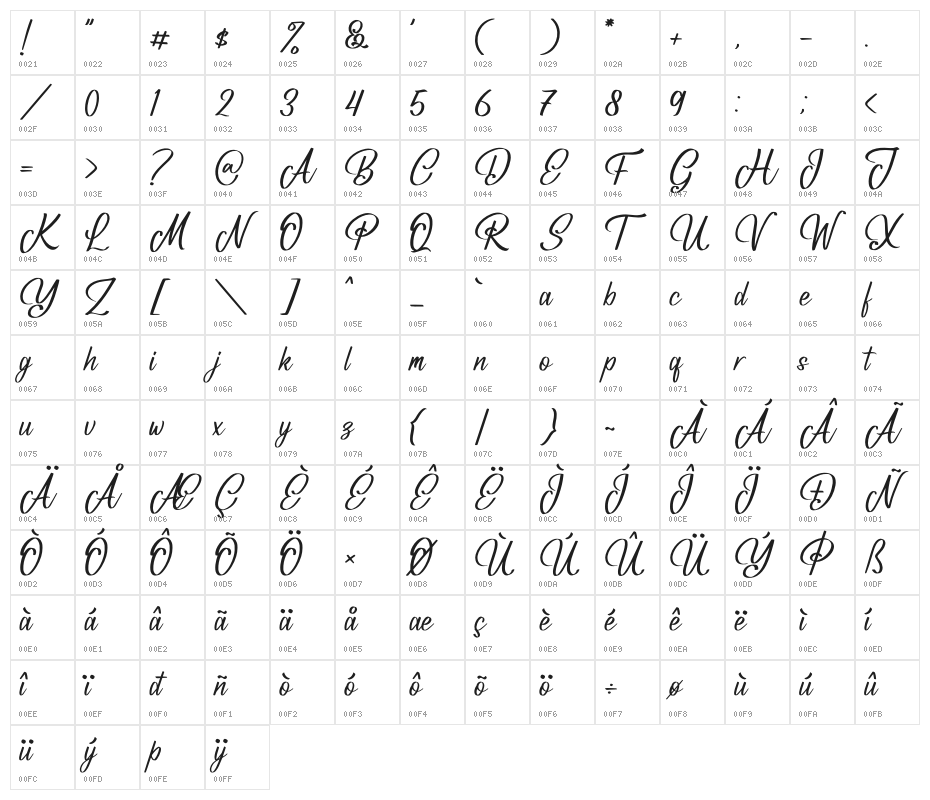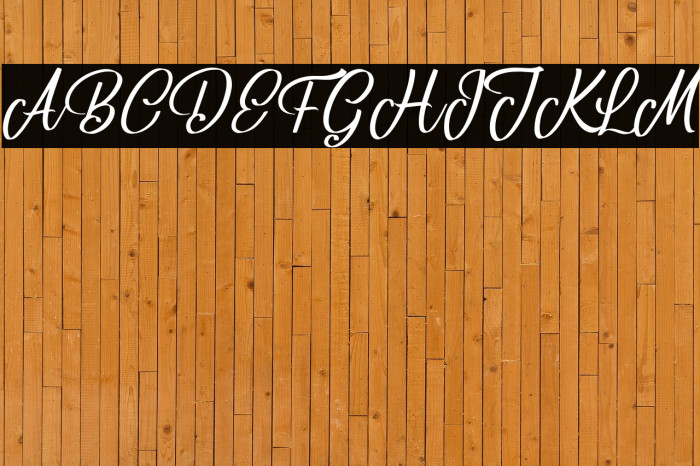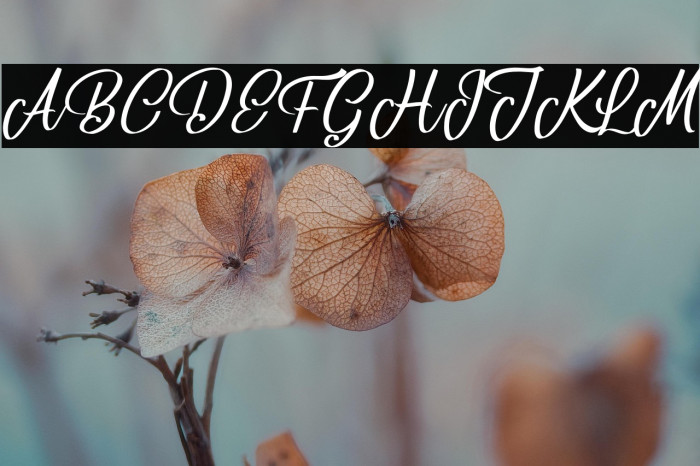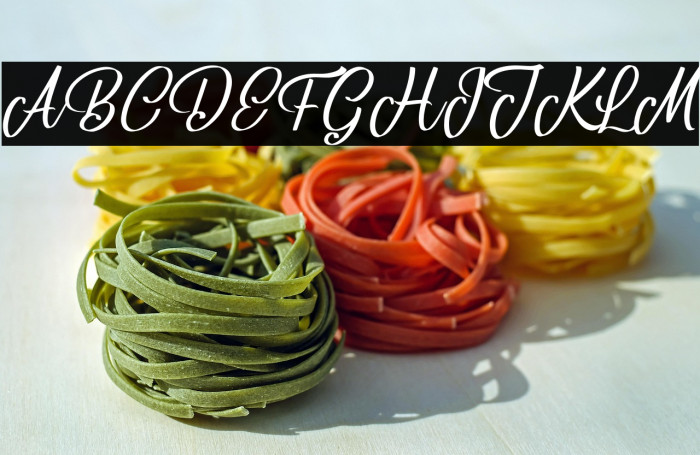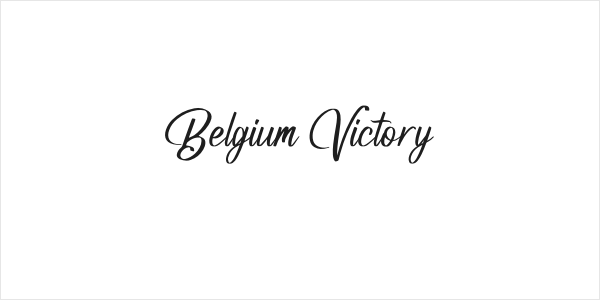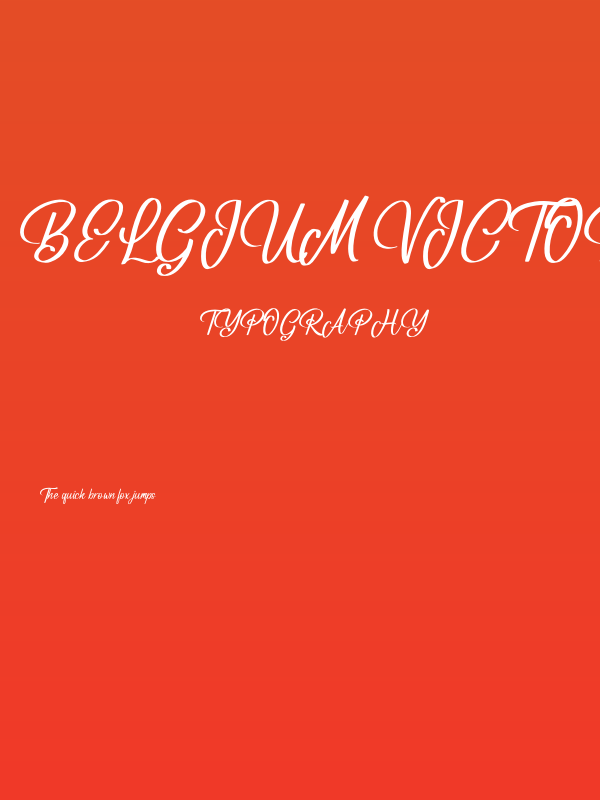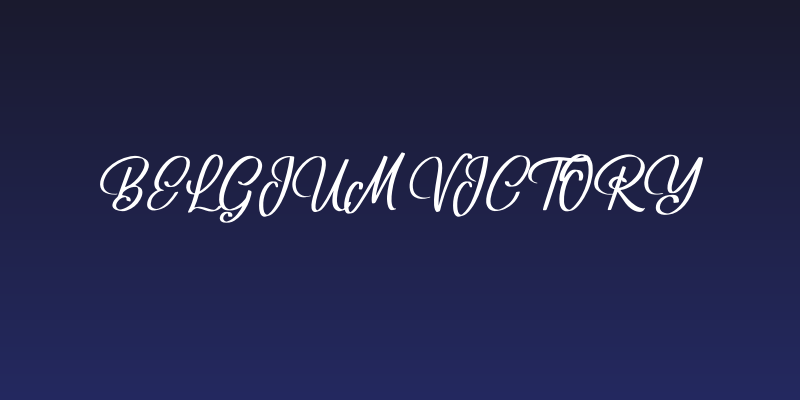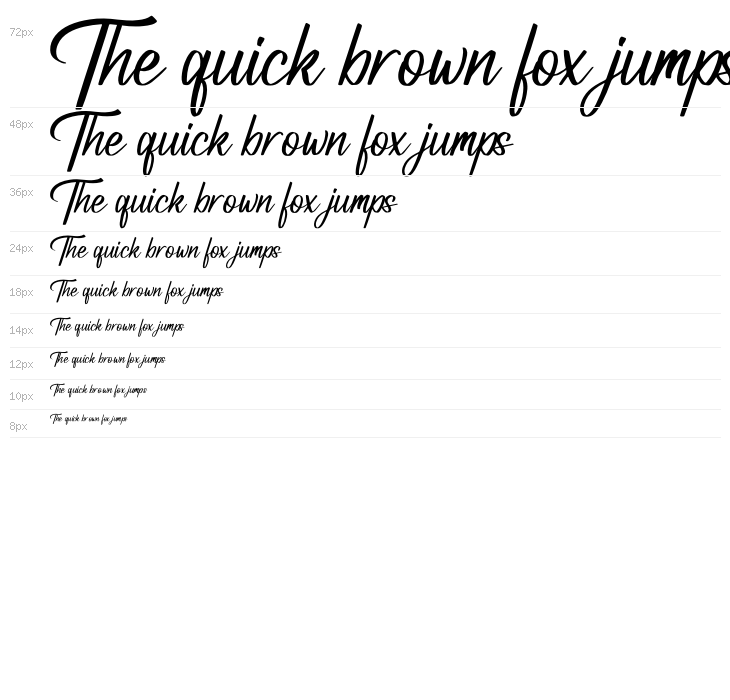
Belgium Victory Font
Belgium Victory Description
This font features a flowing, cursive style with elegant, sweeping curves and a handwritten appearance. The uppercase letters are characterized by their intricate loops and flourishes, giving them a sophisticated and artistic look. The lowercase letters maintain a consistent flow, enhancing readability while retaining a personal touch. The numerals are designed with a slight slant, matching the overall cursive theme. Special characters are seamlessly integrated, maintaining the font's cohesive style. This font exudes a sense of elegance and creativity, making it suitable for projects that require a personal or artistic flair.
| Overall Style | Elegant, Artistic |
| Proposed Projects | Ideal for wedding invitations, greeting cards, personal branding, and artistic projects. |